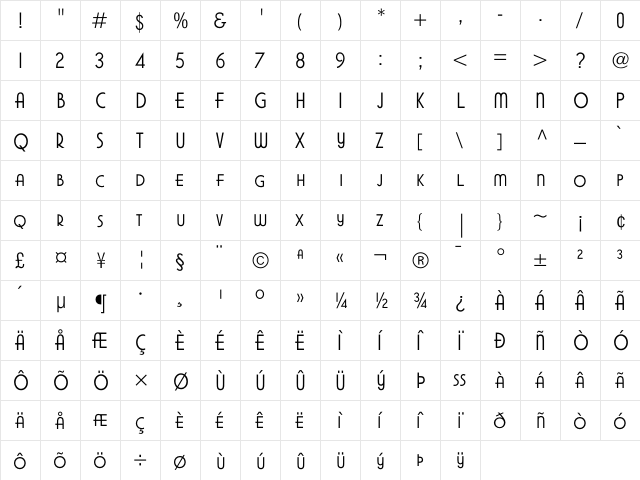
ModifiedGothic Regular
Design Context for ModifiedGothic Typeface
ModifiedGothic takes a clean, functional approach — its unadorned letterforms prioritise legibility and work reliably across screen and print environments.
Font Pairing: Works well alongside a characterful serif or display font that can carry the expressive load while ModifiedGothic handles the functional copy.
Pro Tip: Use ModifiedGothic for UI labels, navigation, and short-form body copy where clean legibility is the priority.